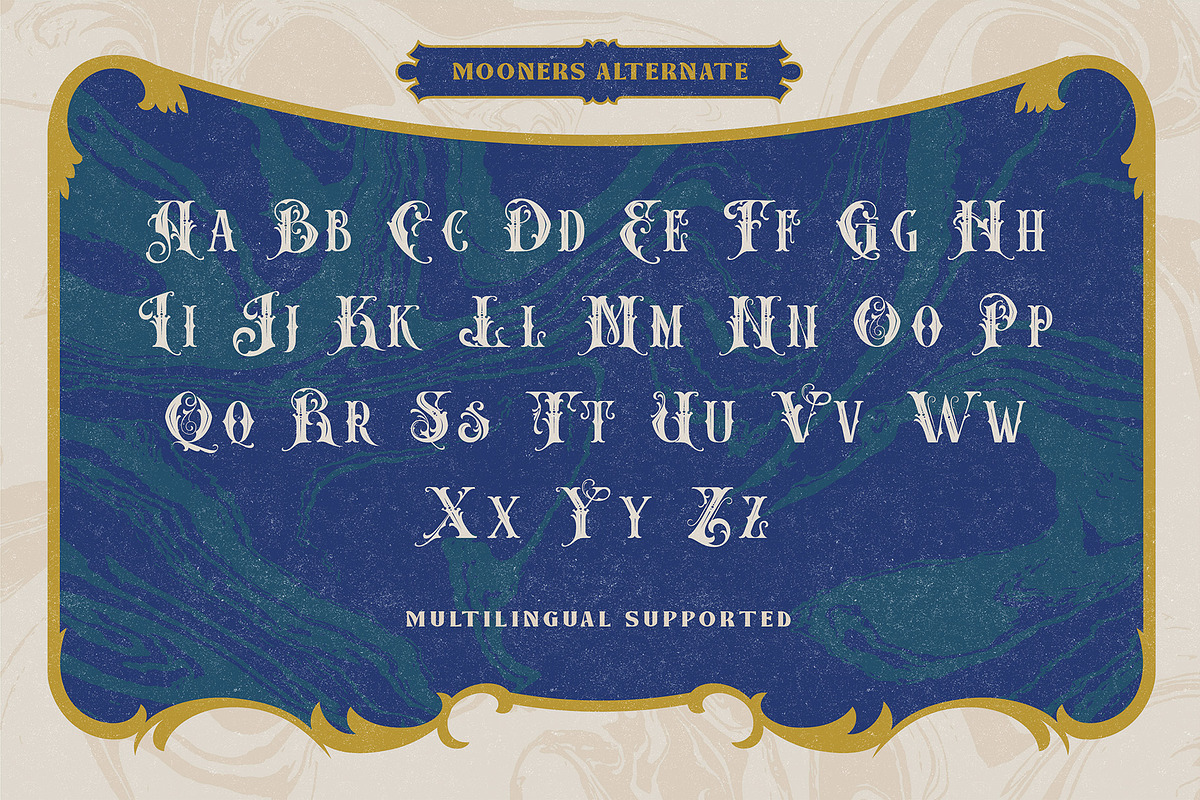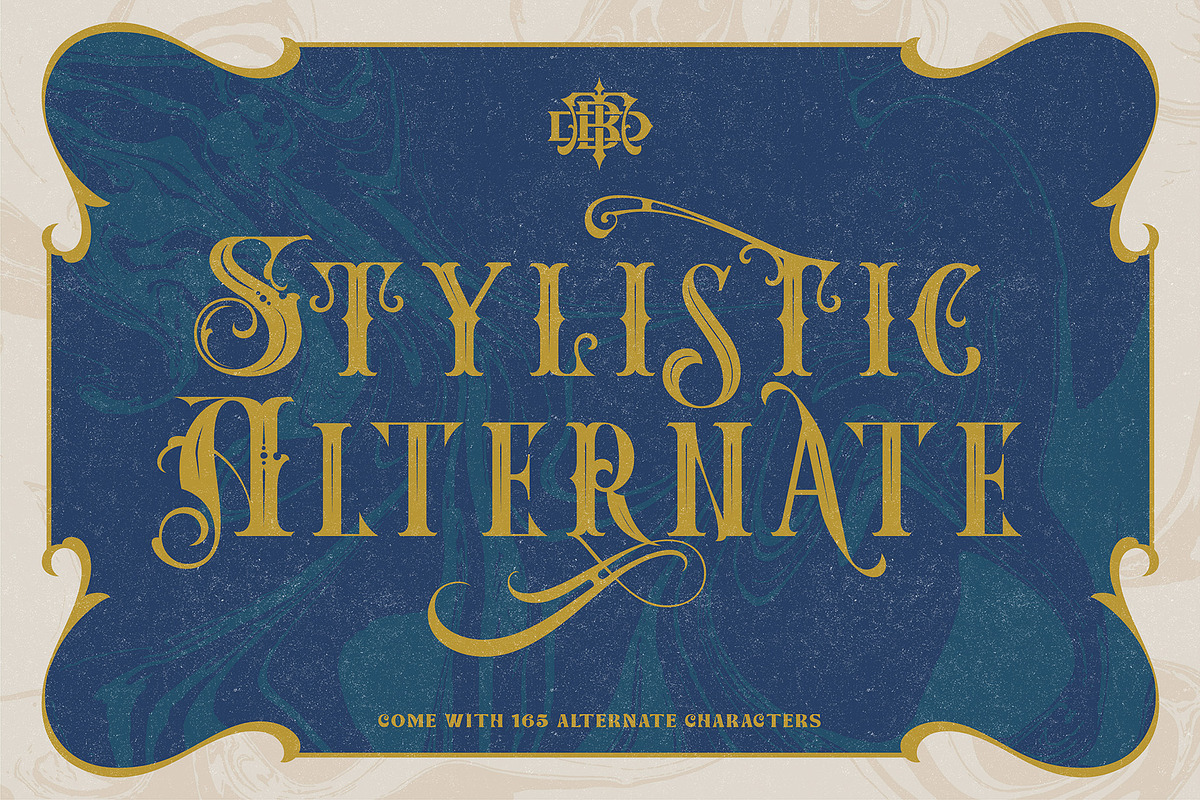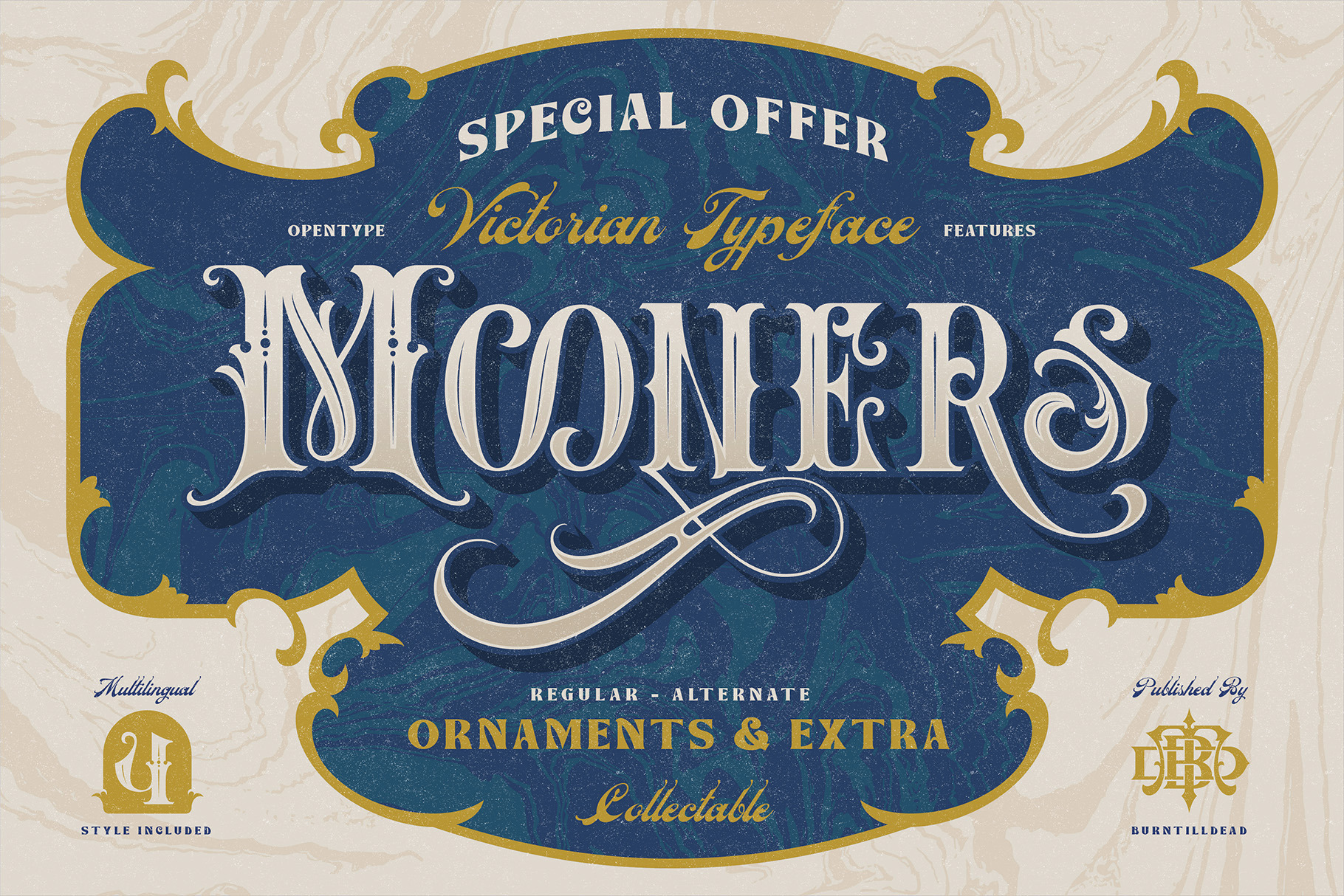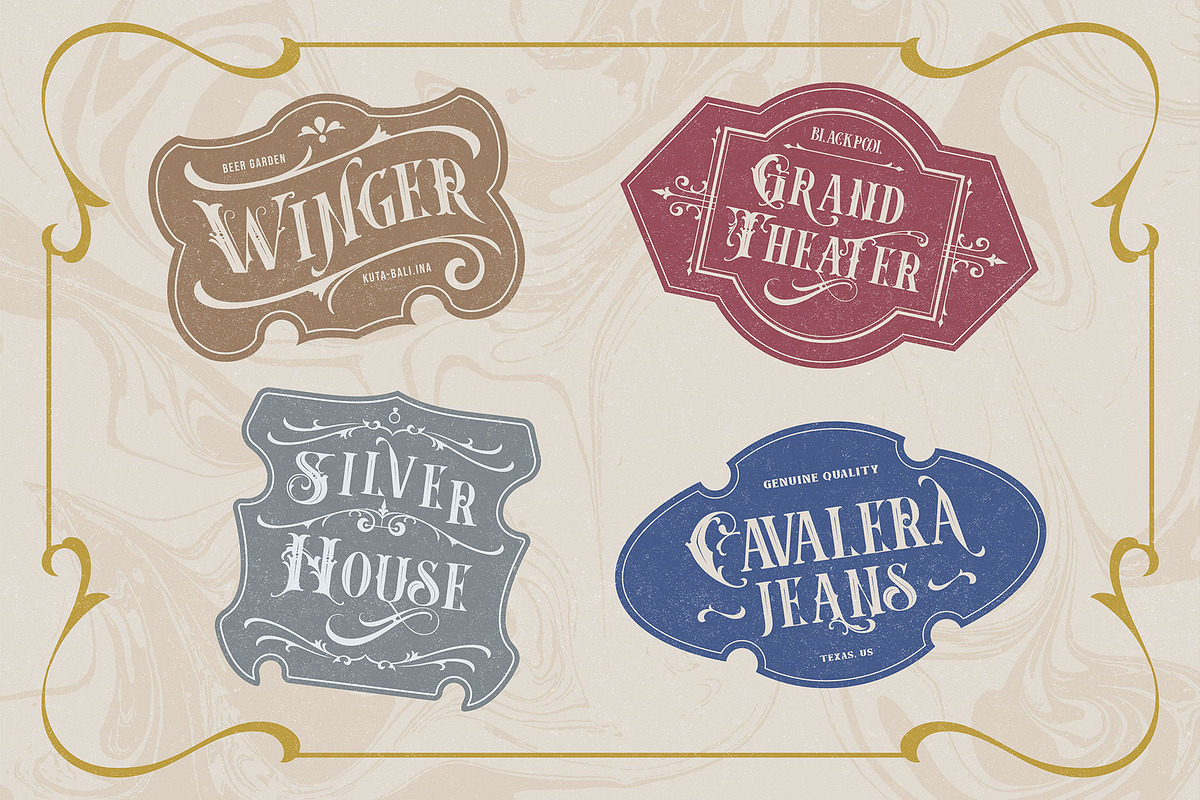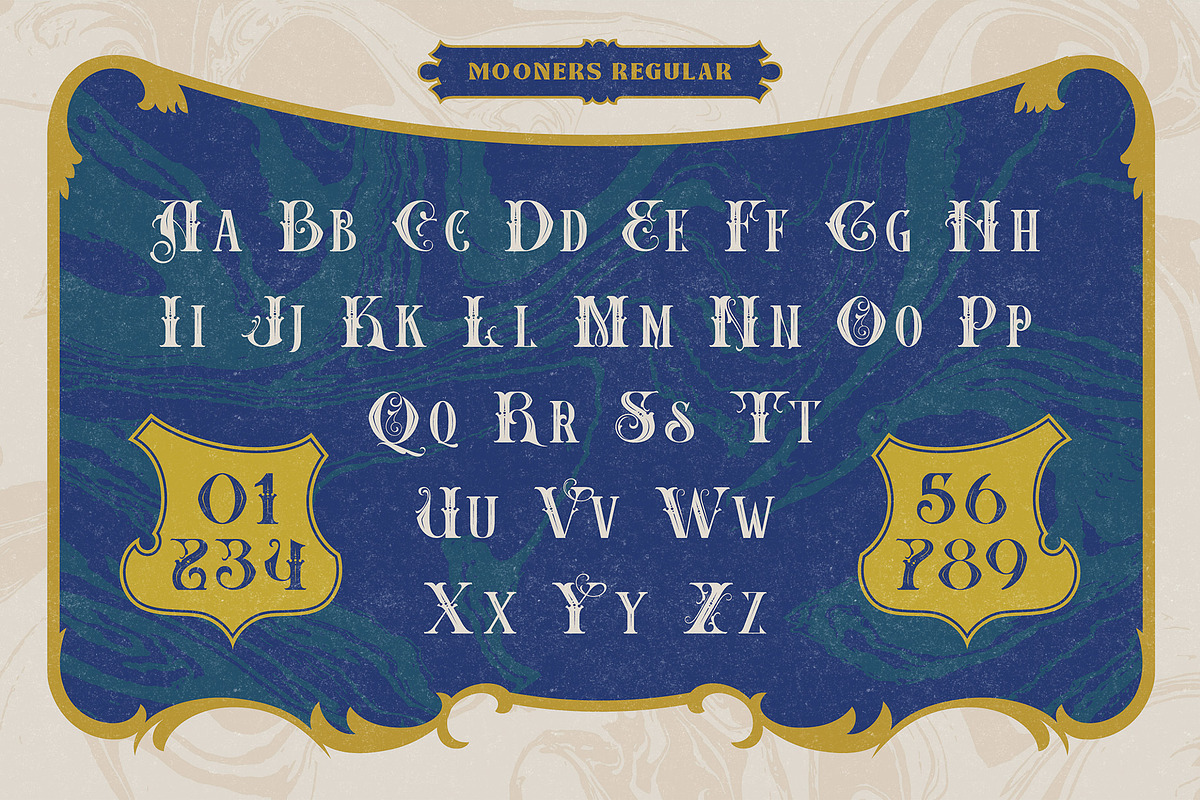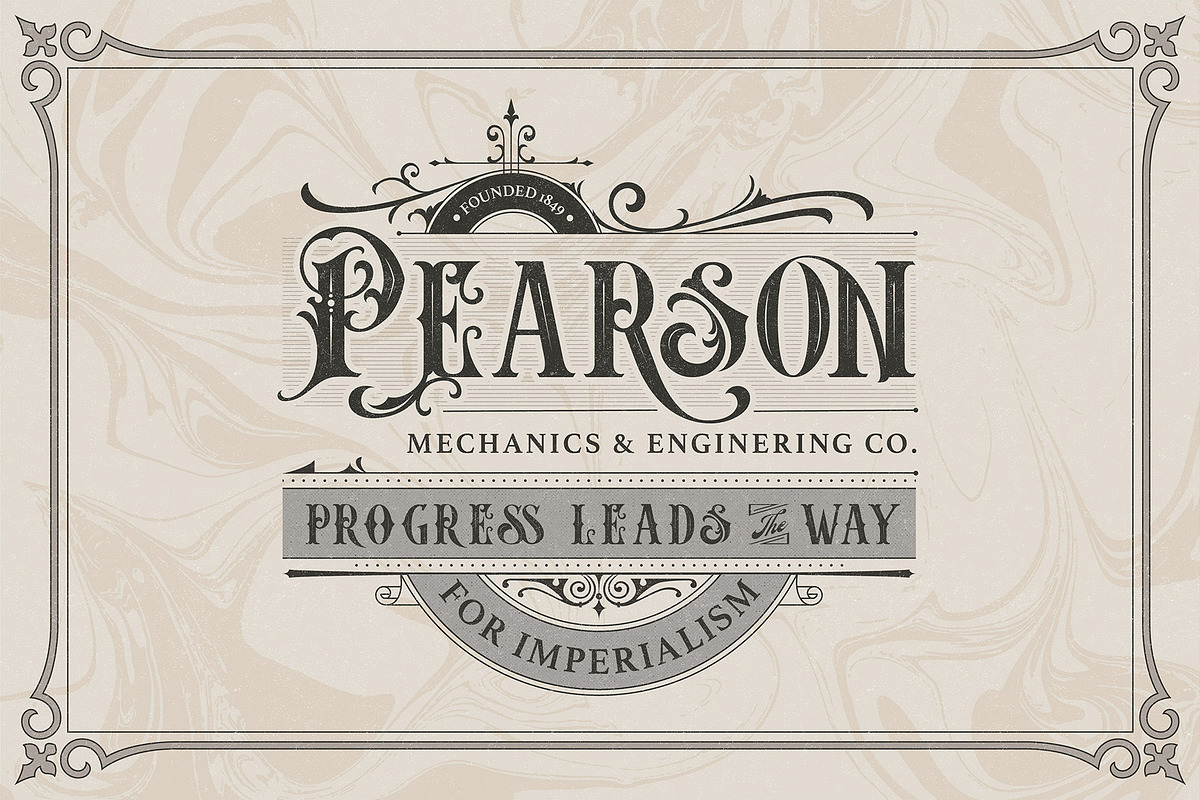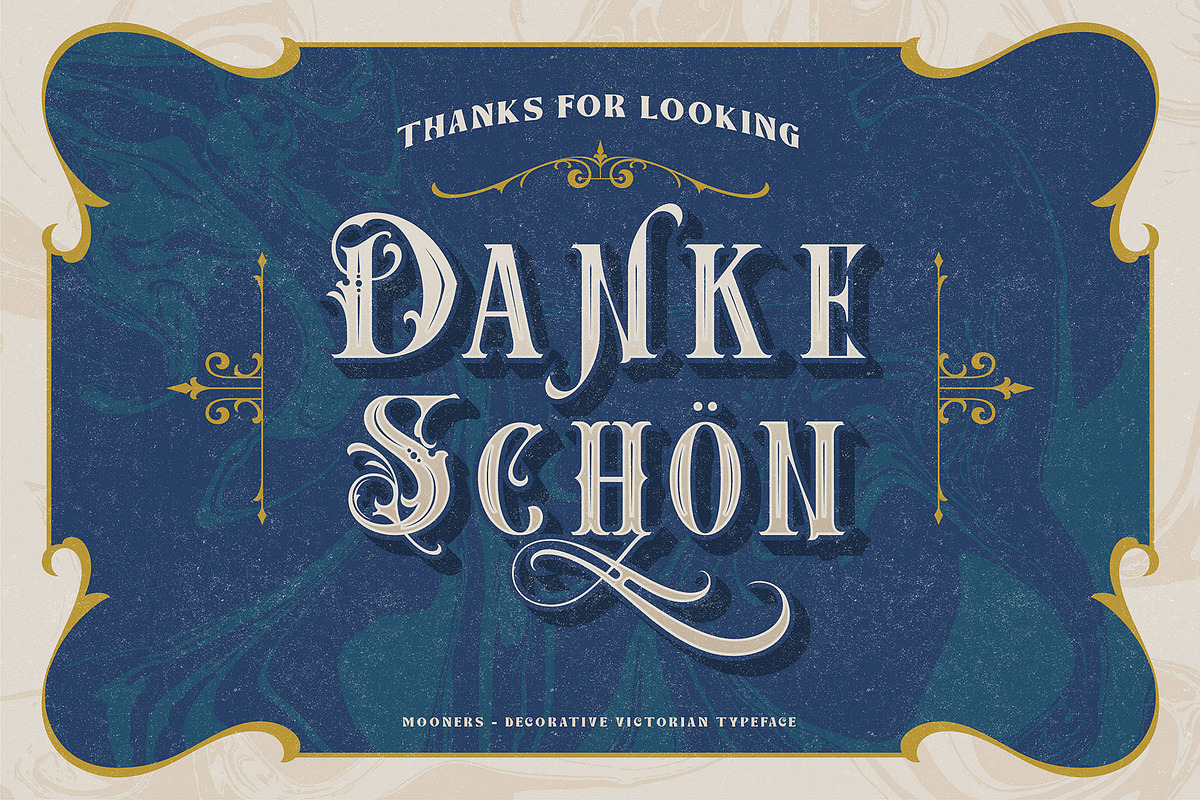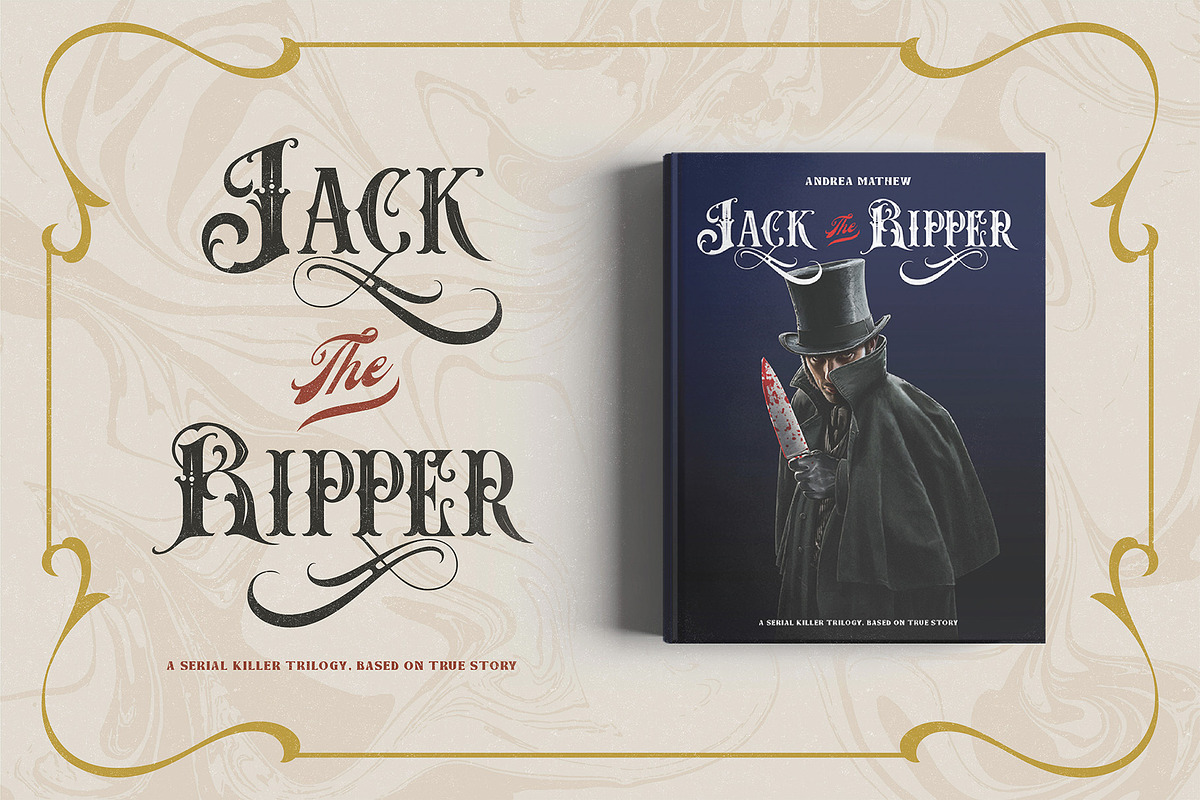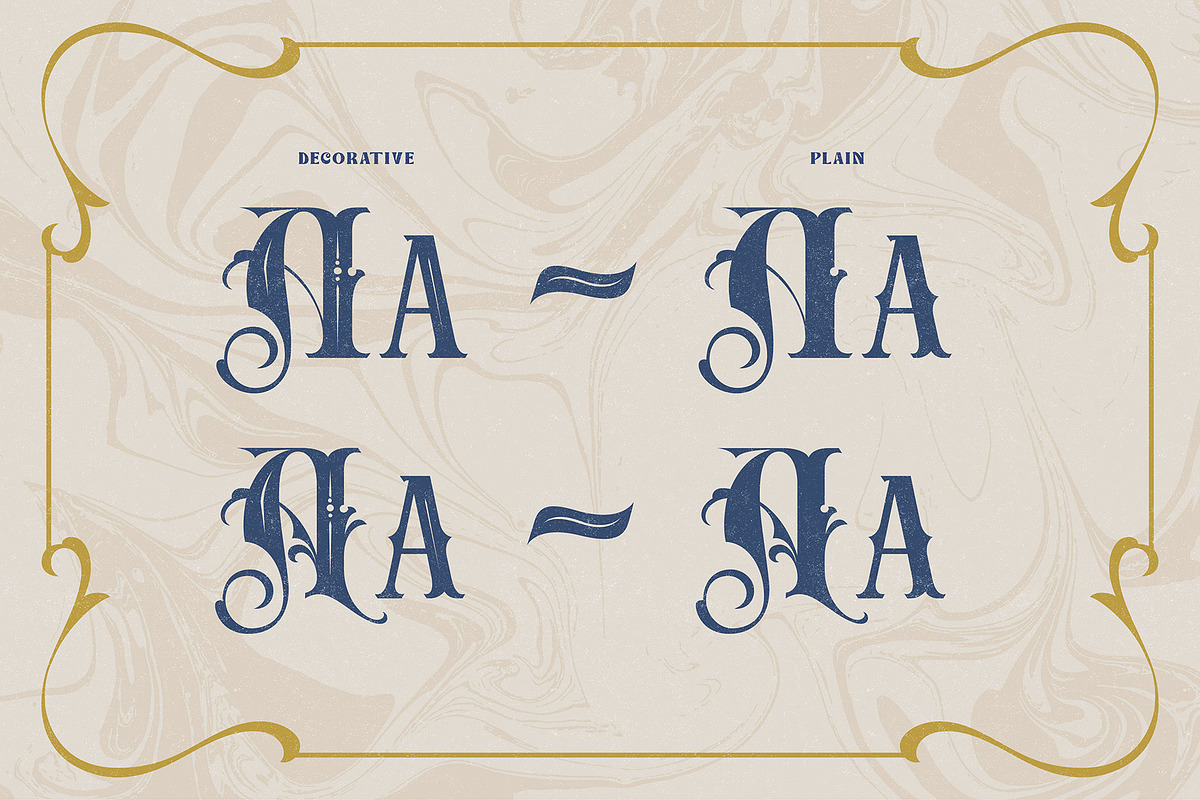
Mooners - Victorian Typeface
Make your design as a time machine with "Mooners" typeface. Inspired by the decorative victorian advertising poster, Mooners came to make make your document, poster, logo, etc... perfectly have classical vibes.
Very victorian, ornamental, decorative and classical. A solid combination that can bring your design, logo, document, website, etc. back to 1800 decade. Multilingual fonts-family and playful one with 165 alternate characters.
OPENTYPE FEATURES - First lowercase (after a capital) and last letter swap automatically. You just need turn on Contextual Alternates. Usually Adobe Photoshop and other programs activate it by default.